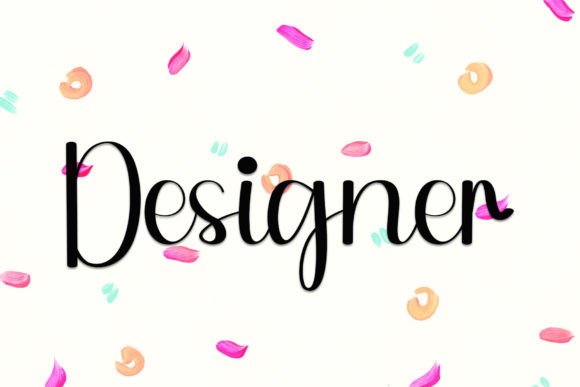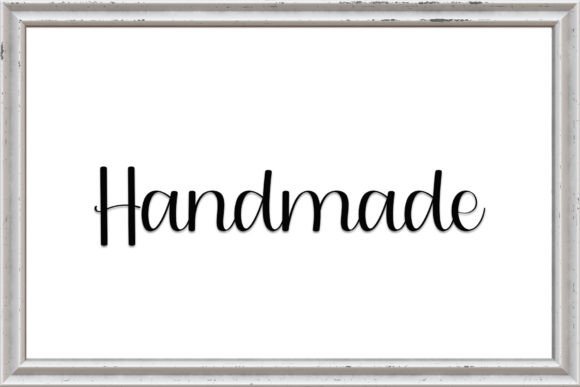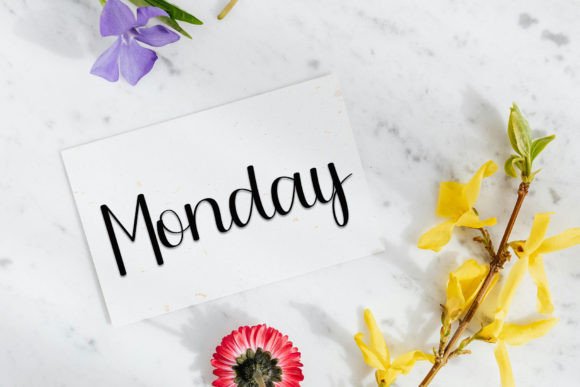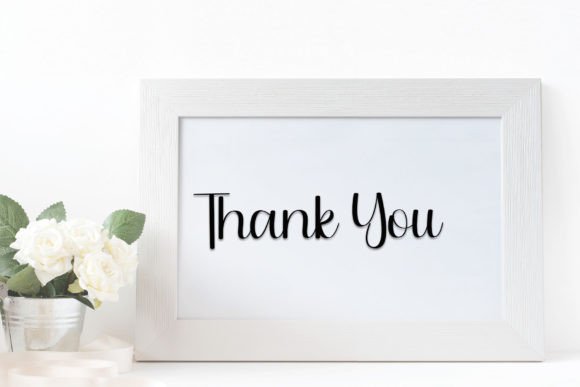
Introducing Digital: The Trendy Handwritten Font for Modern Designs
In the world of digital design, typography plays a crucial role in conveying the tone and aesthetic of a project. A well-chosen font can elevate a design from ordinary to extraordinary, adding a touch of elegance and sophistication. If you’re a designer or crafter looking for a font that embodies the perfect blend of classic and contemporary styles, look no further than Digital, a trendy handwritten font that is sure to revolutionize your design projects.
Inspired by Timeless Classic Calligraphy
Digital is a handwritten font that draws inspiration from timeless classic calligraphy, infusing it with a modern twist. The result is a font that exudes a sense of sophistication and refinement, perfect for designers who want to add a touch of luxury to their projects. With its impeccable form and elegant lines, Digital is sure to impress even the most discerning designers and crafters.
A Contemporary Atmosphere with a Classic Touch
What sets Digital apart from other fonts is its unique ability to blend classic and contemporary styles seamlessly. The font’s modern atmosphere is balanced by its classic roots, creating a truly unique and versatile typeface. Whether you’re working on a branding project, a wedding invitation, or a packaging design, Digital is the perfect choice for adding a touch of elegance and sophistication.
Key Features of Digital Font
- Trendy and Modern: Digital is a trendy handwritten font that is perfect for designers who want to create modern and stylish designs.
- Classic Inspiration: The font draws inspiration from timeless classic calligraphy, adding a touch of sophistication and elegance to any design.
- Impeccable Form: Digital’s impeccable form ensures that it looks great in any design project, from digital media to print materials.
- Versatile: The font is versatile and can be used for a wide range of design projects, from branding and advertising to packaging and more.
How to Use Digital Font in Your Design Projects
Using Digital in your design projects is easy. Here are a few tips to get you started:
- Pair it with Other Fonts: Digital looks great when paired with other fonts, especially sans-serif fonts. Try pairing it with a clean sans-serif font for a stylish and modern look.
- Use it for Headings: Digital is perfect for headings and titles, adding a touch of elegance and sophistication to any design.
- Experiment with Colors: Digital looks great in a variety of colors, from bold and bright to soft and pastel. Experiment with different colors to find the perfect look for your design.
Benefits of Using Digital Font
There are many benefits to using Digital in your design projects. Here are a few:
- Elegance and Sophistication: Digital adds a touch of elegance and sophistication to any design, making it perfect for high-end brands and luxury products.
- Versatility: The font is versatile and can be used for a wide range of design projects, from digital media to print materials.